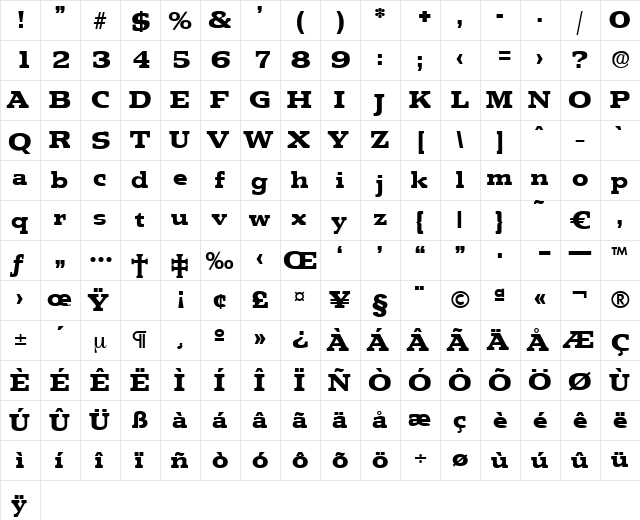
Penthouse-ExtraBold Regular Font Preview
Penthouse-ExtraBold Regular
Penthouse-ExtraBold Regular Font Details
Design Context for Penthouse-ExtraBold Typeface
Penthouse-ExtraBold takes a measured approach to typography — its balanced proportions and neutral character make it a reliable workhorse for both digital and print work. The heavy weight commands attention and anchors typographic hierarchies.